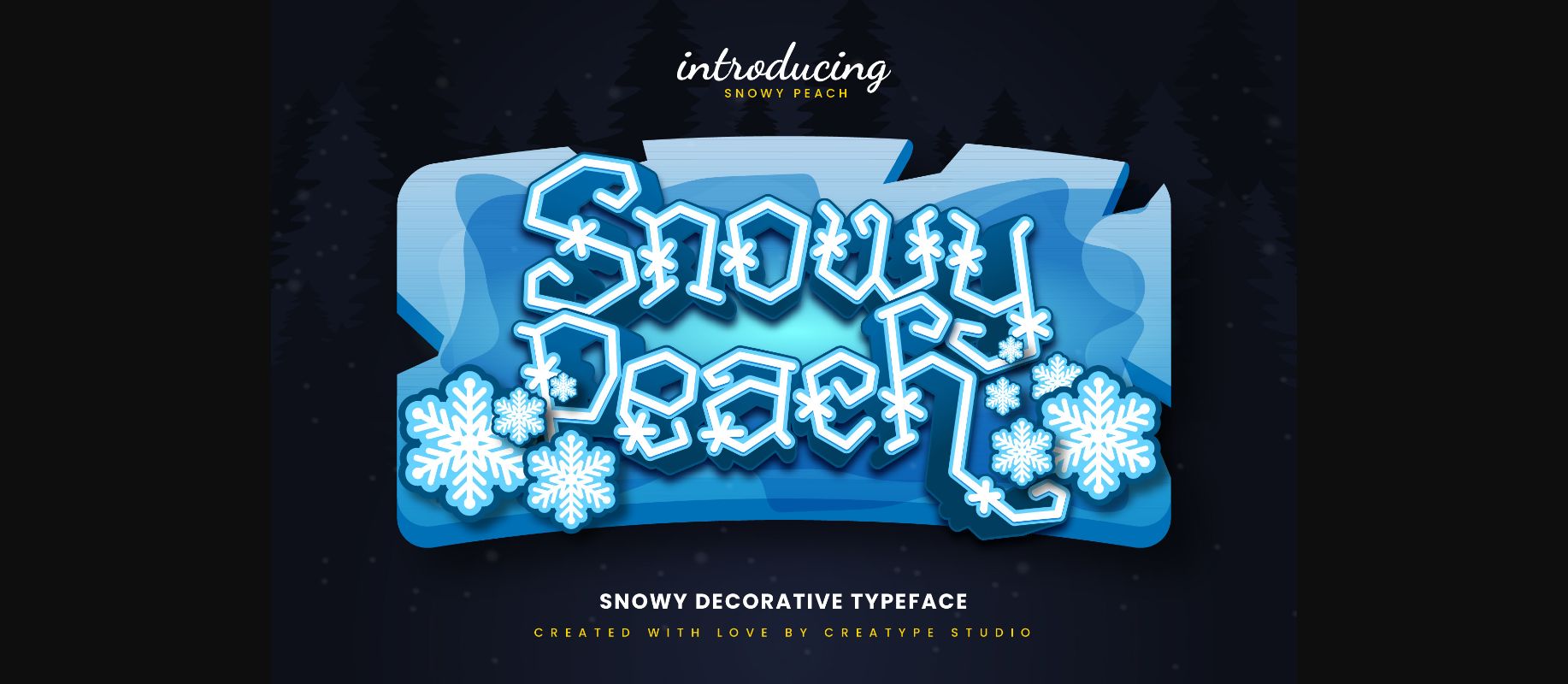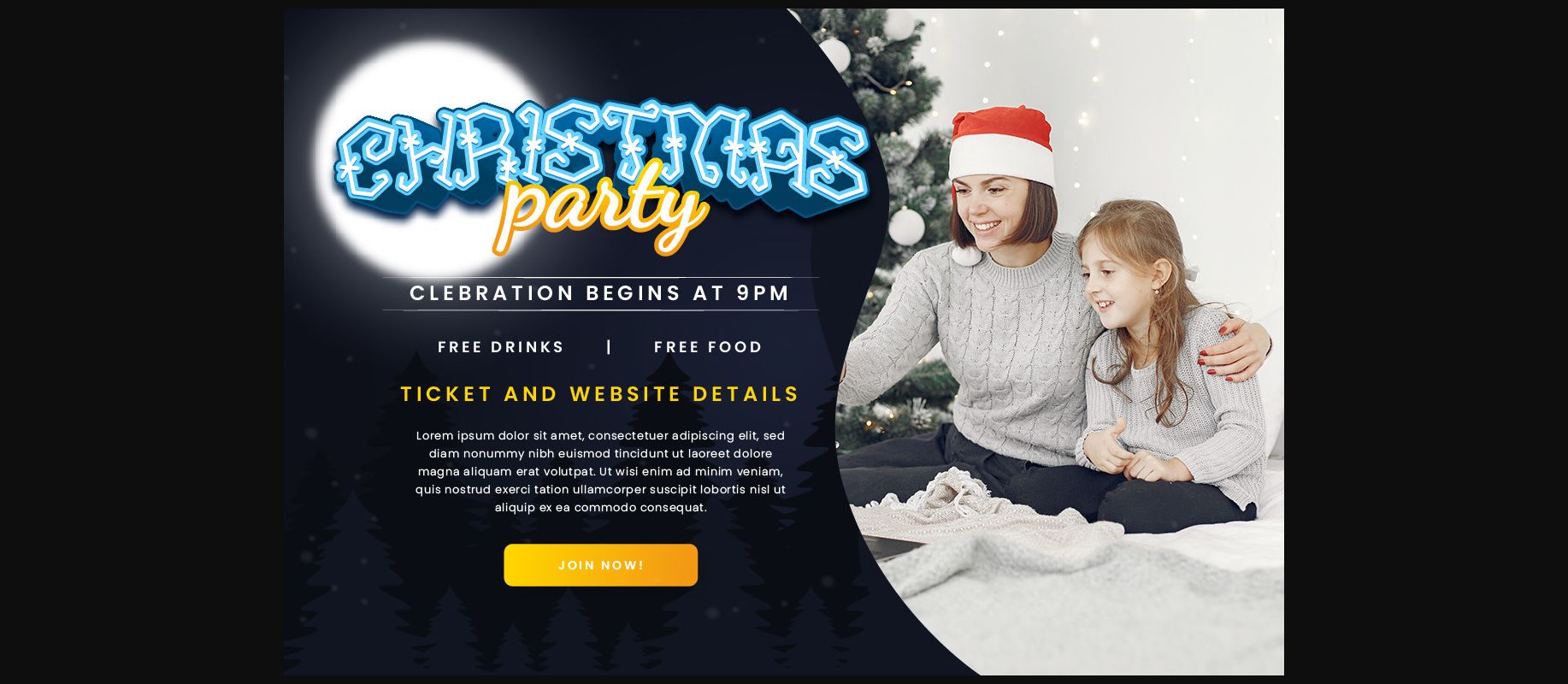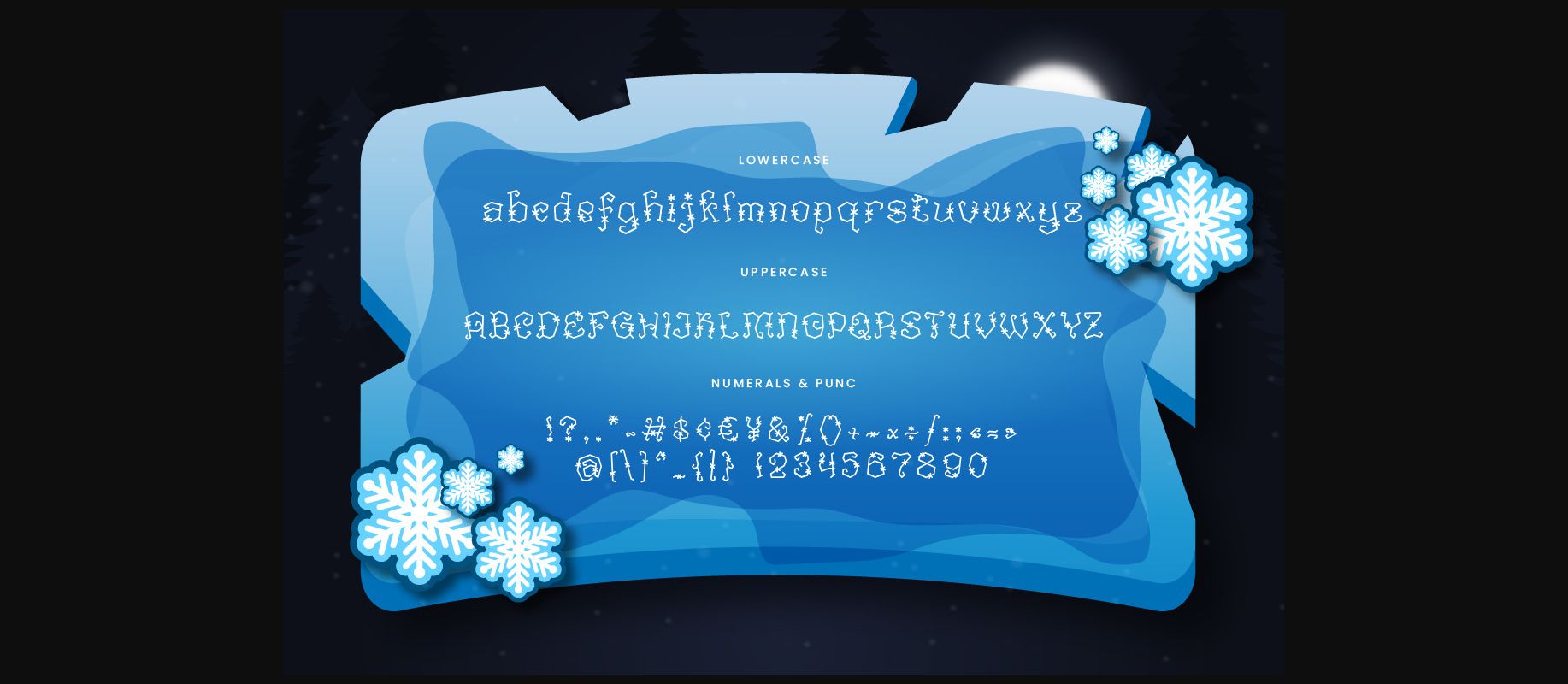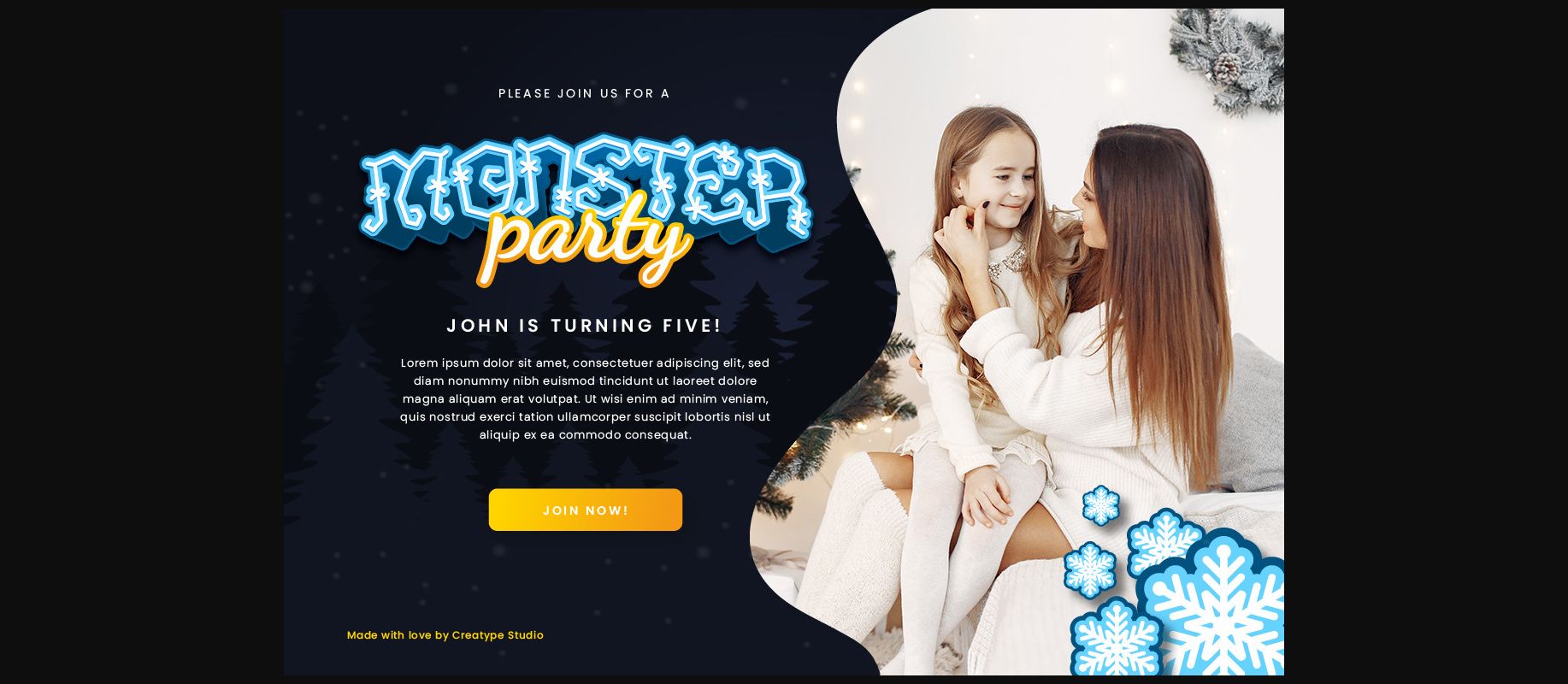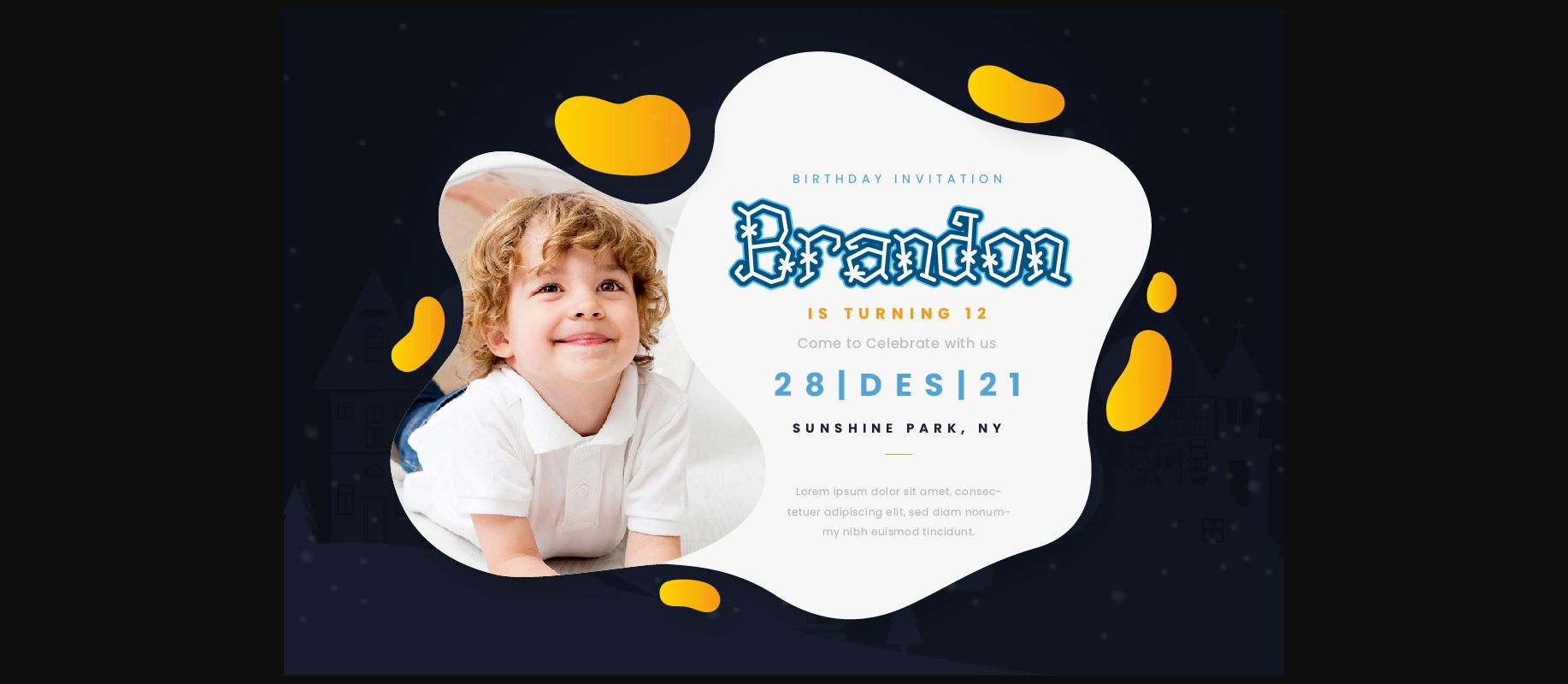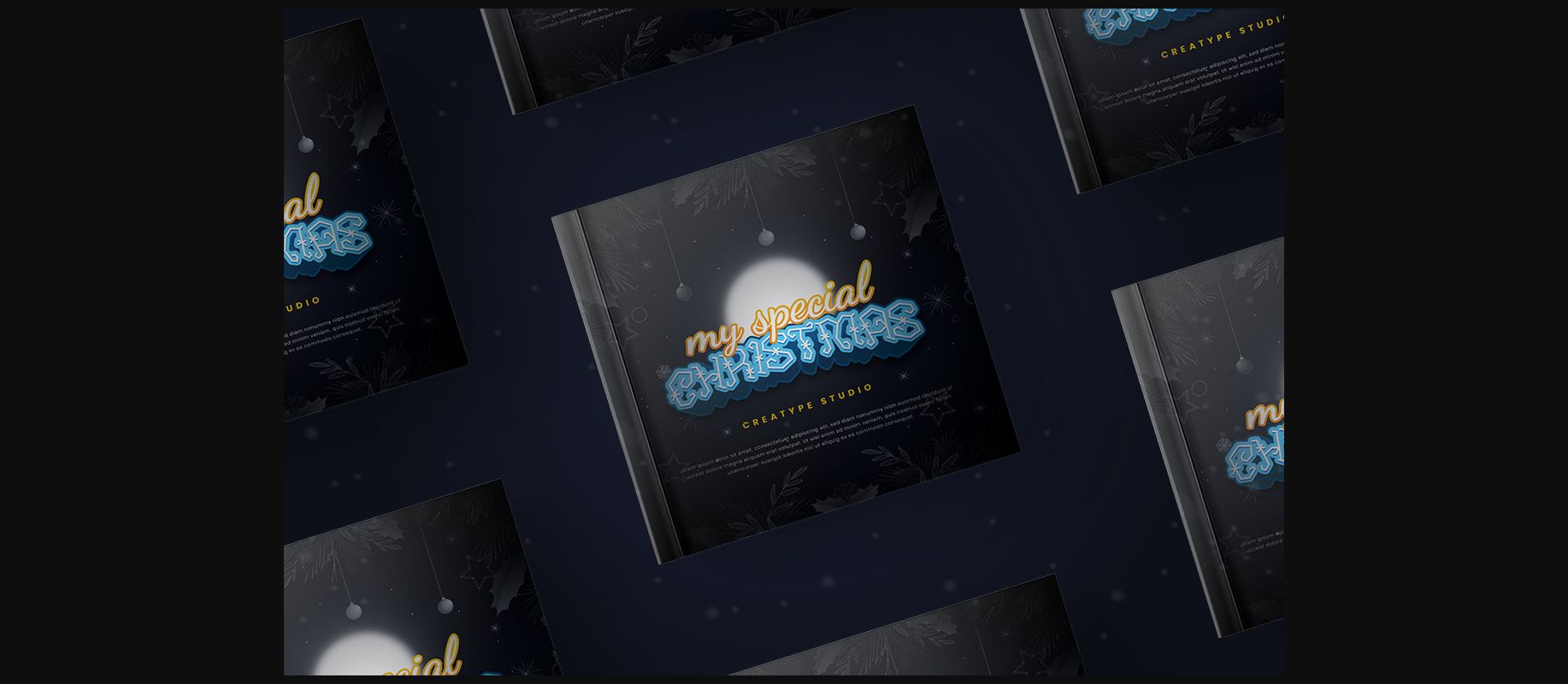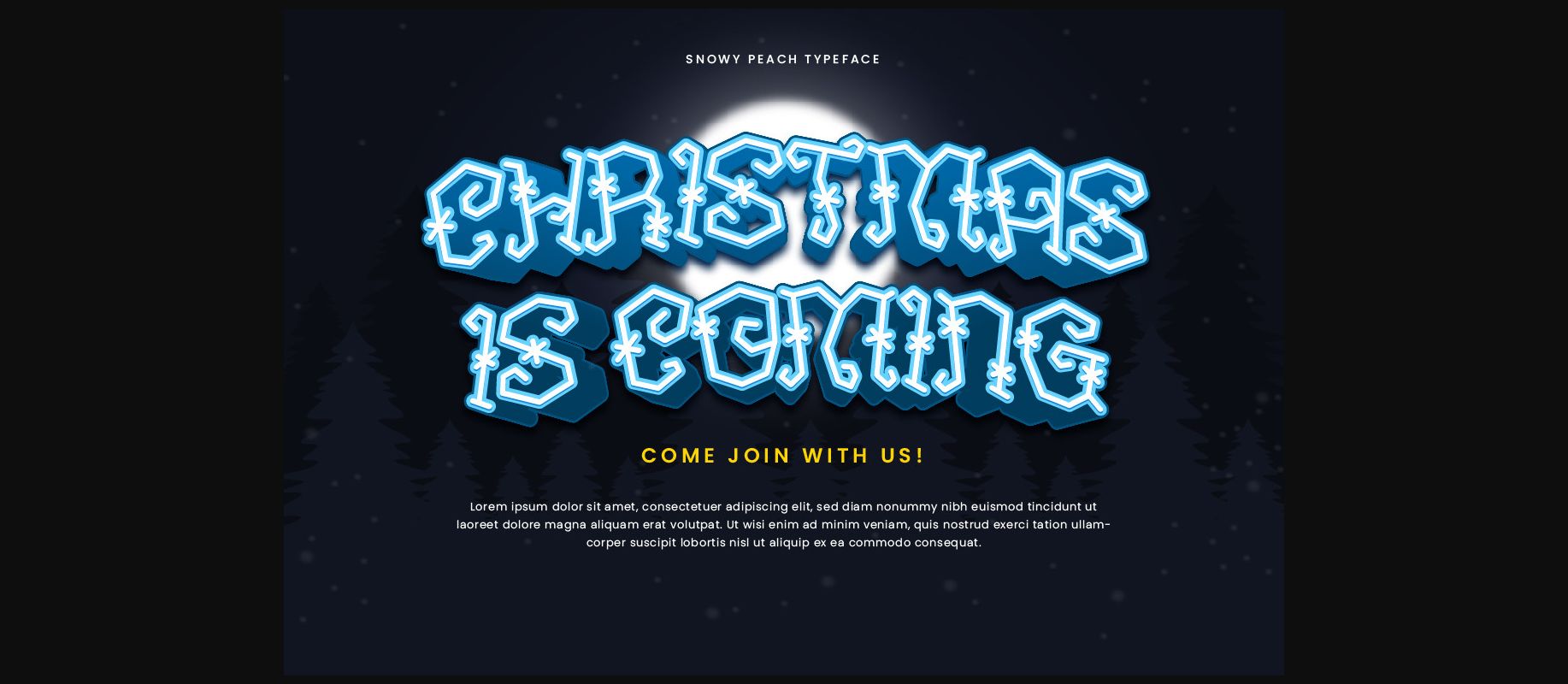
About Snowy Peach Christmas Decorative Font
Snowy Peach is a snowy decorative typeface that is specially made to produce a unique shape. It is very suitable for those of you who want your product to look different from the others. It works perfectly for branding projects, logos, wedding designs, social media posts, advertisements, product packaging, product designs, label, photography, watermark, invitation, stationery, and any projects that need that extra touch.